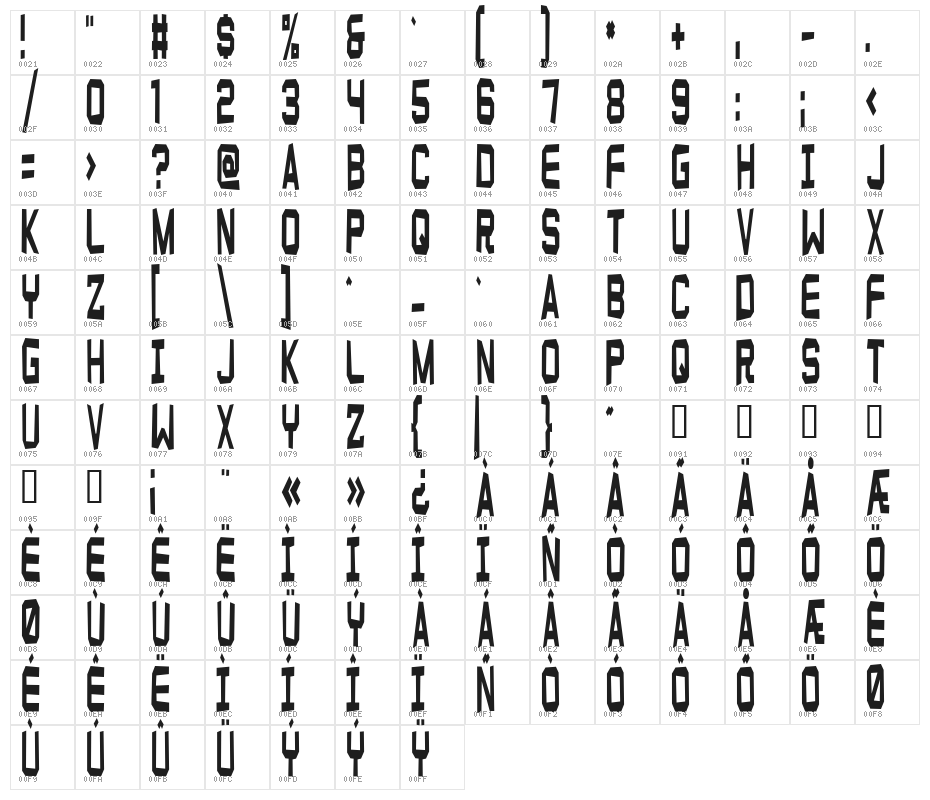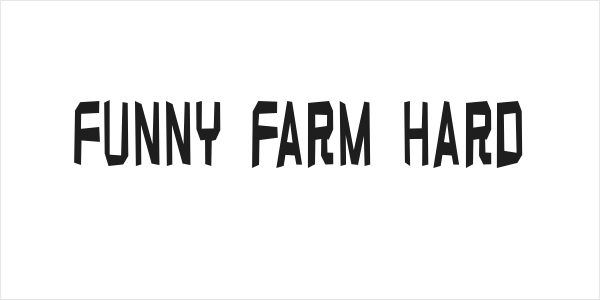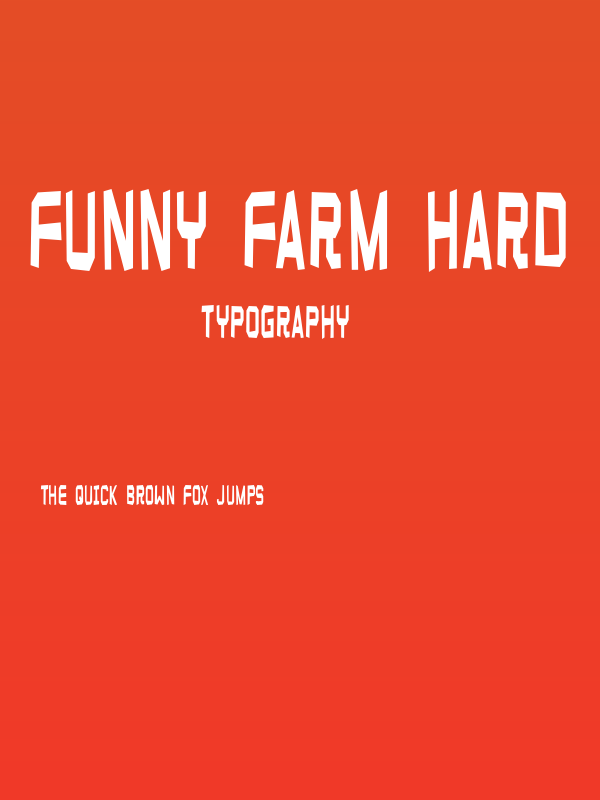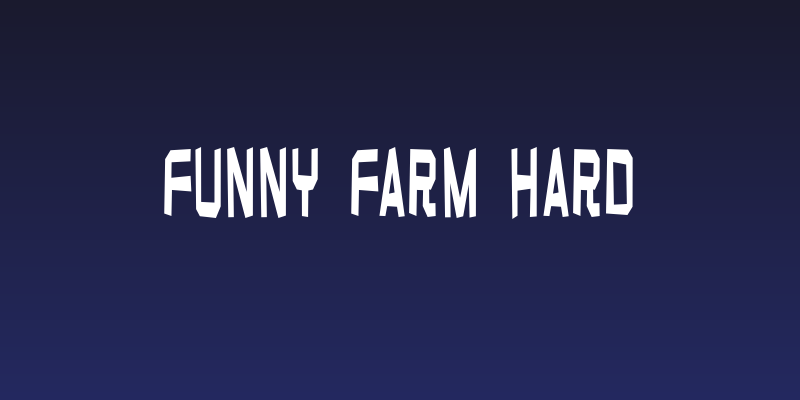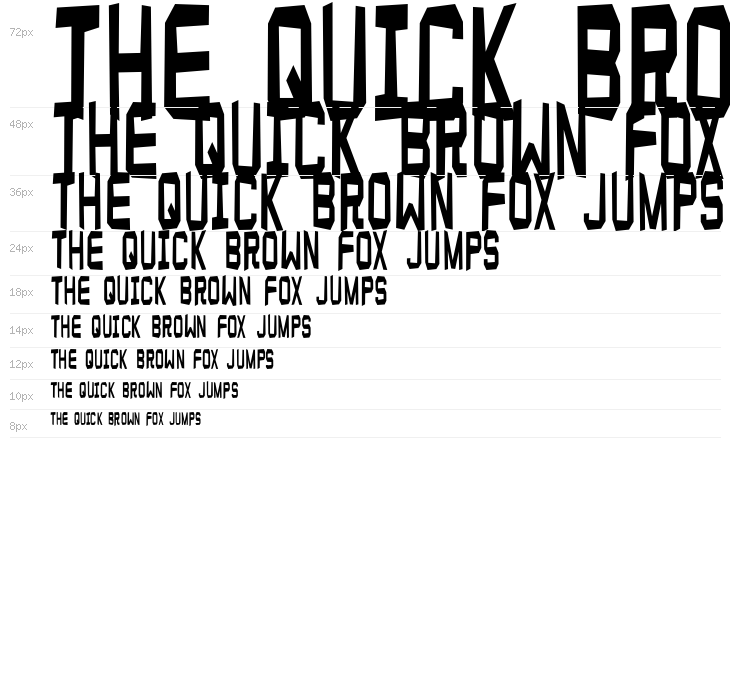
Funny farm hard Font
Funny farm hard Description
This font features a bold and geometric design with a strong presence. The characters are constructed with angular edges and a blocky appearance, giving it a distinct and modern look. The uppercase letters are uniform in height, while the numbers and special characters maintain the same boldness and angular style. The font's unique structure makes it stand out, with each character having a slightly condensed form. This design is ideal for projects that require a strong visual impact and a contemporary aesthetic.
| Proposed Projects | Ideal for posters, branding, headlines, and any design needing a strong, modern impact. |